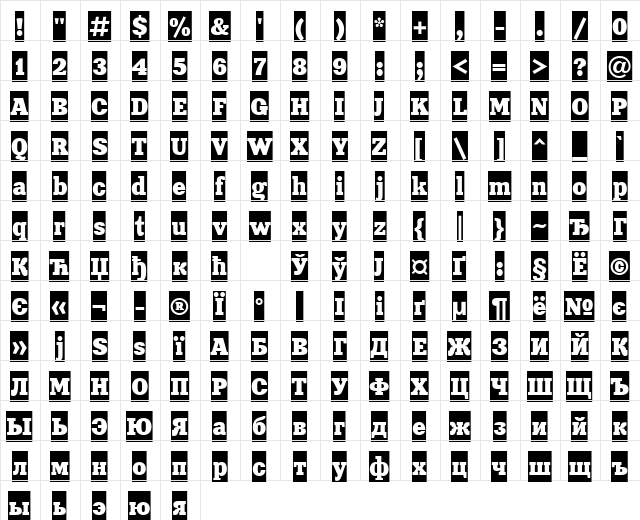
XeniaCameoCTT Regular
Design Context for XeniaCameoCTT Typeface
XeniaCameoCTT offers clean, dependable letterforms without strong stylistic allegiance, making it a practical choice for designers who need flexibility.